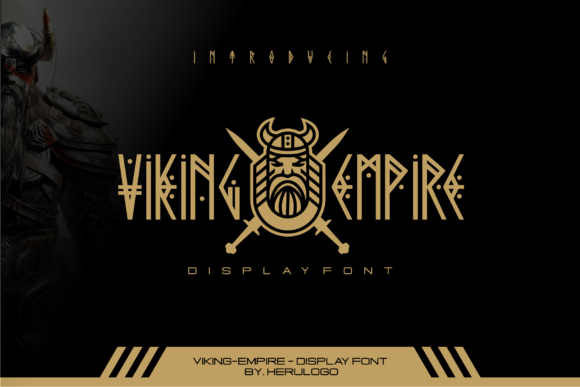
Introducing Viking Empire Font, the perfect choice for those seeking the best font for art labels! Created by Herulogo, this unique display font draws inspiration from the captivating world of ancient Viking history. With its distinctly tribal feel, Viking Empire is bound to leave a lasting impression on your audience.
Imagine the power and strength of a Viking warrior encapsulated in a font. That's exactly what Viking Empire delivers. Its bold and powerful letterforms evoke a sense of grandeur and adventure, making it ideal for headlines, branding, and various artistic projects. Let your words roar like a Viking battle cry with this remarkable font.
Crafted with meticulous attention to detail, Viking Empire boasts an exquisite design that captures the essence of Viking culture. Each letter is intricately crafted, reflecting the artistry and craftsmanship of these legendary seafarers. Bring a touch of the ancient world into the modern era with this awe-inspiring font.
But Viking Empire is not just about aesthetics. It is a font that speaks to the soul. Its captivating presence will ignite emotions, evoke nostalgia, and transport your audience to a time of epic sagas and heroic tales. Let your words become a portal, connecting your audience with the rich history and mythical allure of the Vikings.
Whether you're an artist, a designer, or a business owner, Viking Empire is your gateway to captivating your audience. Use it to create stunning art labels that effortlessly convey the essence of your work. Make your branding stand out from the crowd with a font that exudes strength and character. With Viking Empire, your message will leave an indelible mark on all who encounter it.